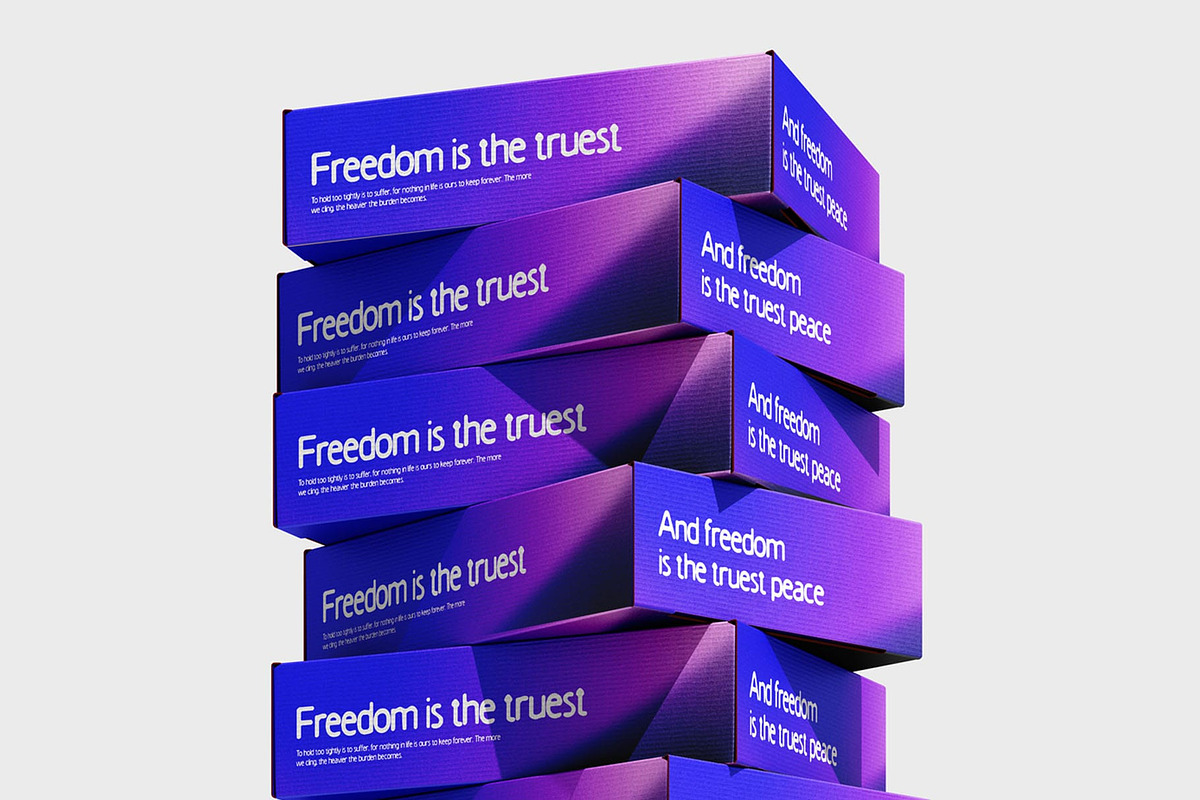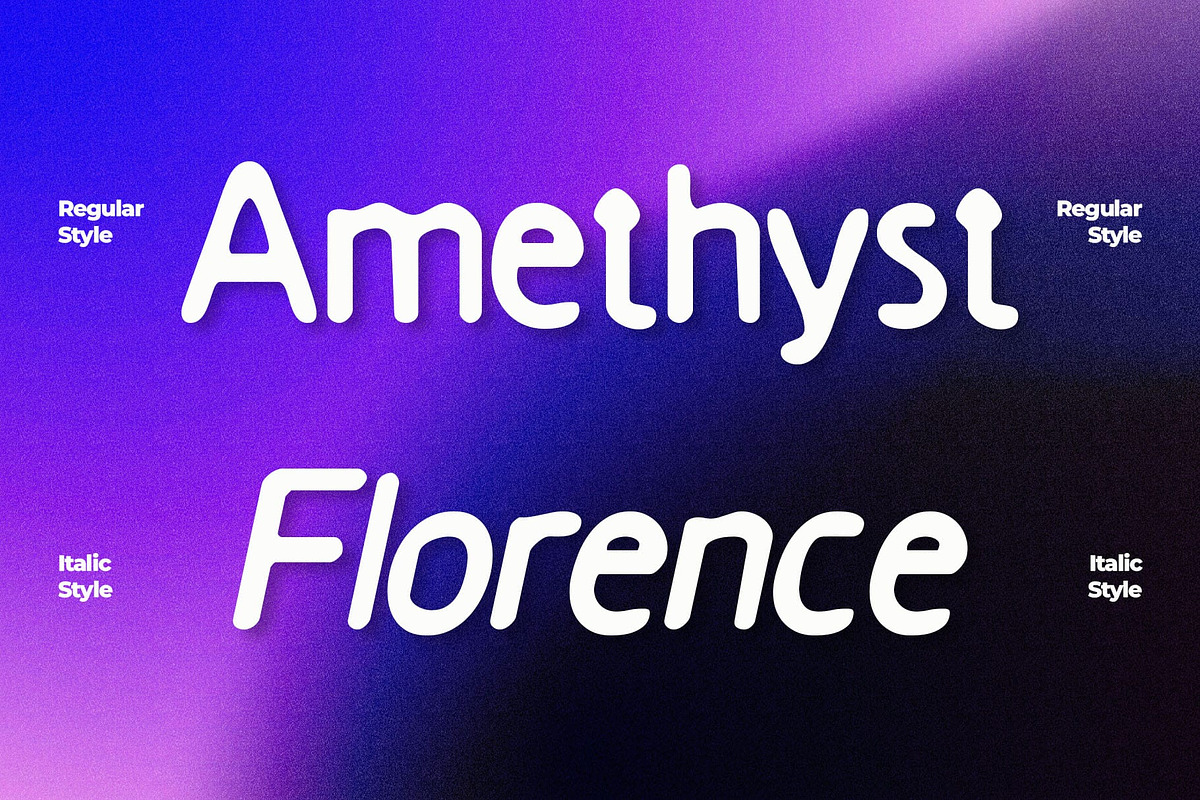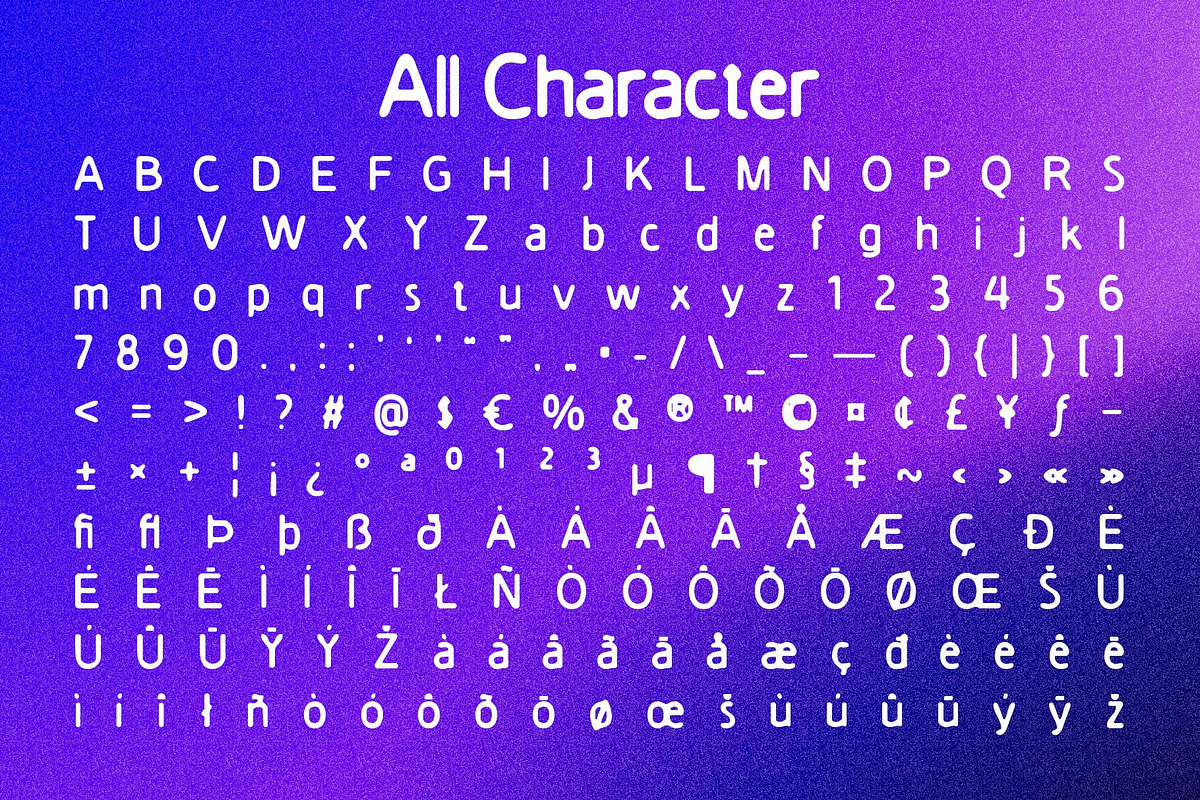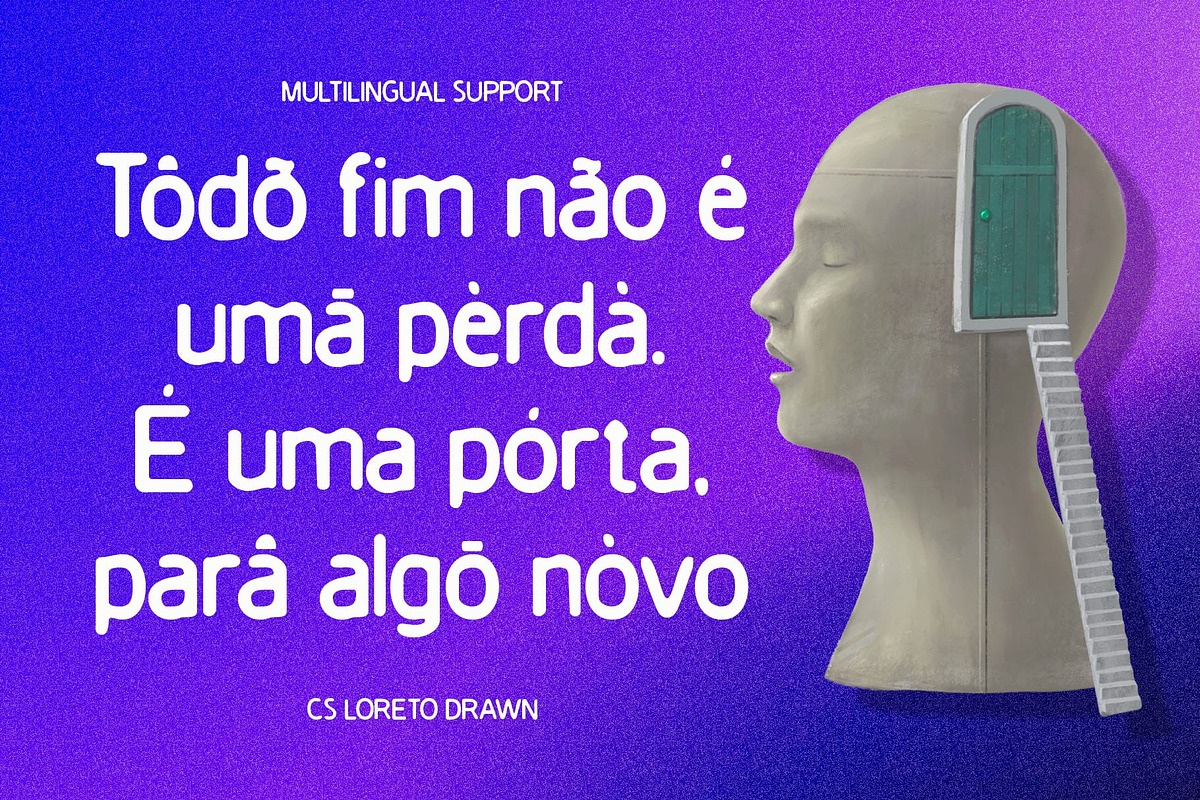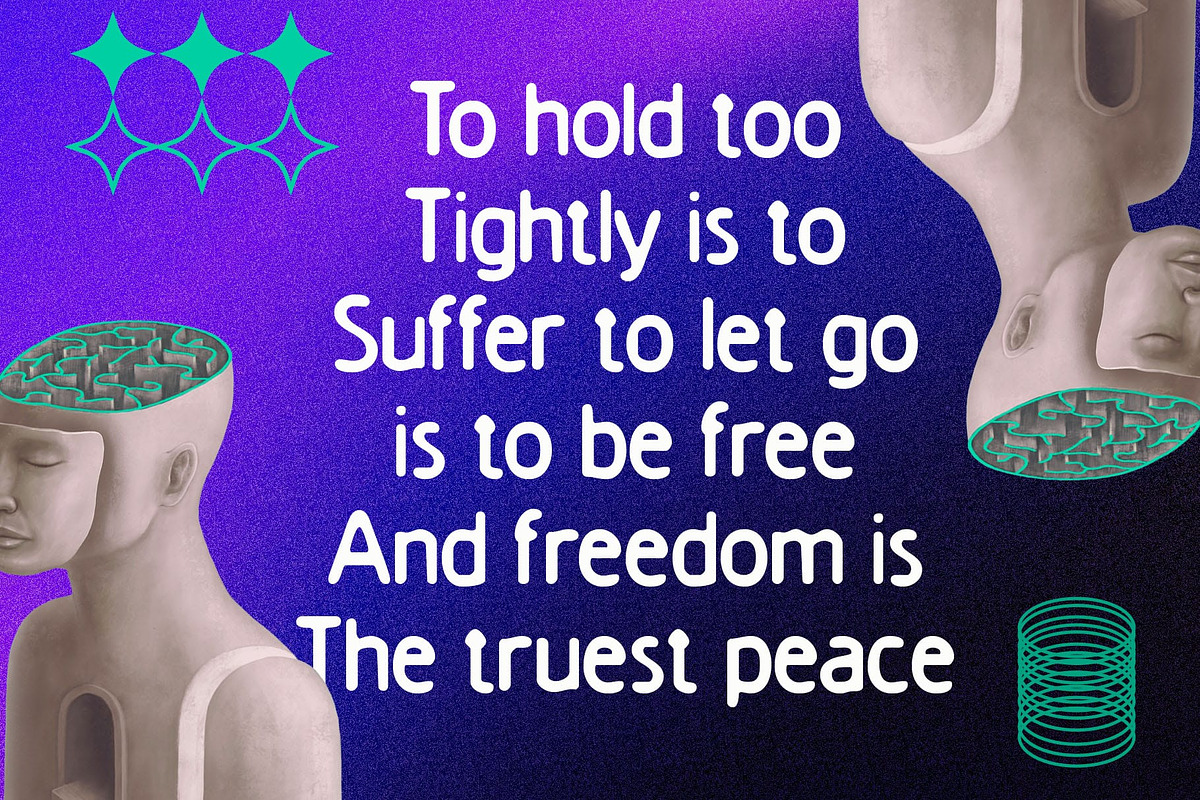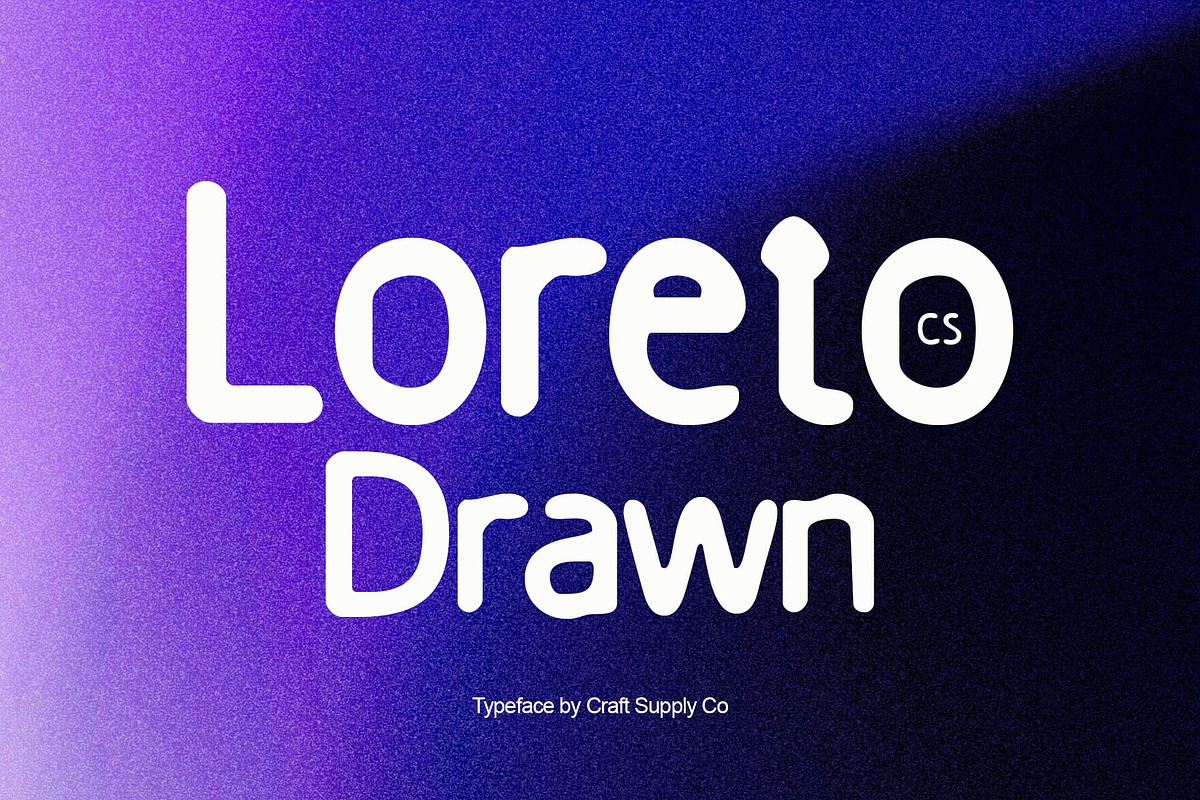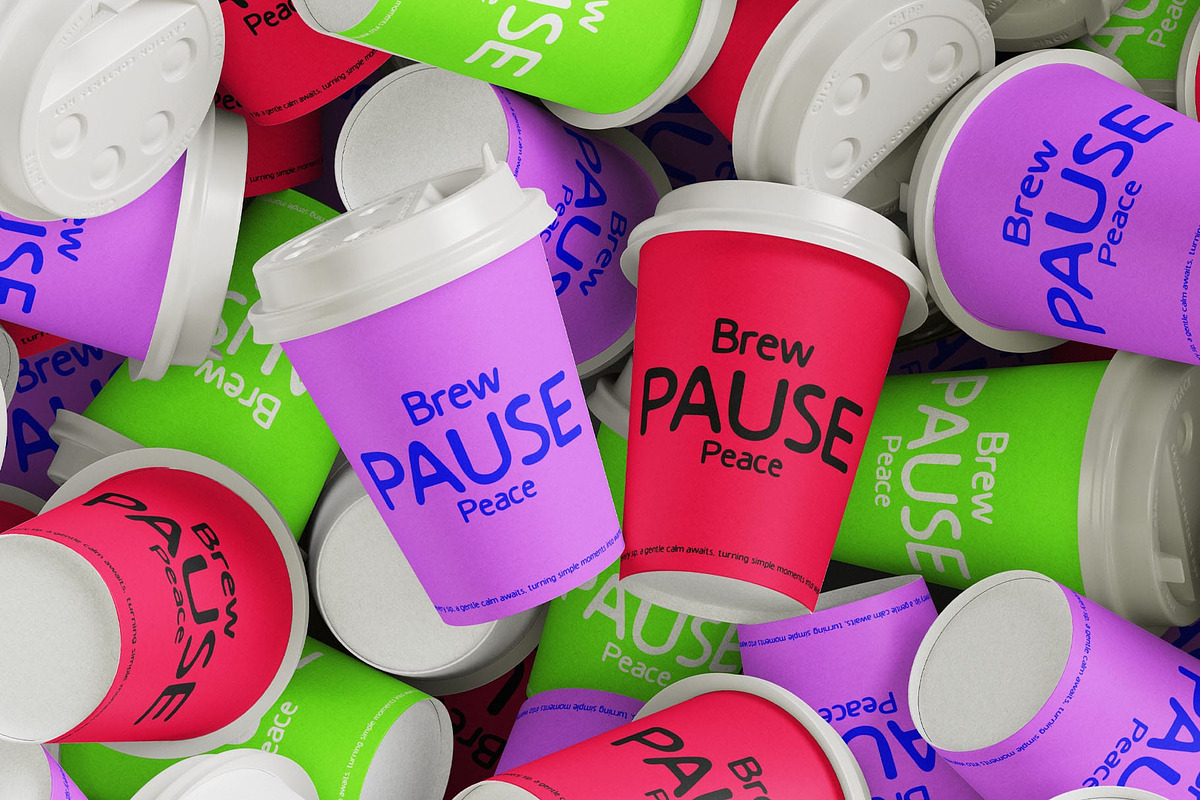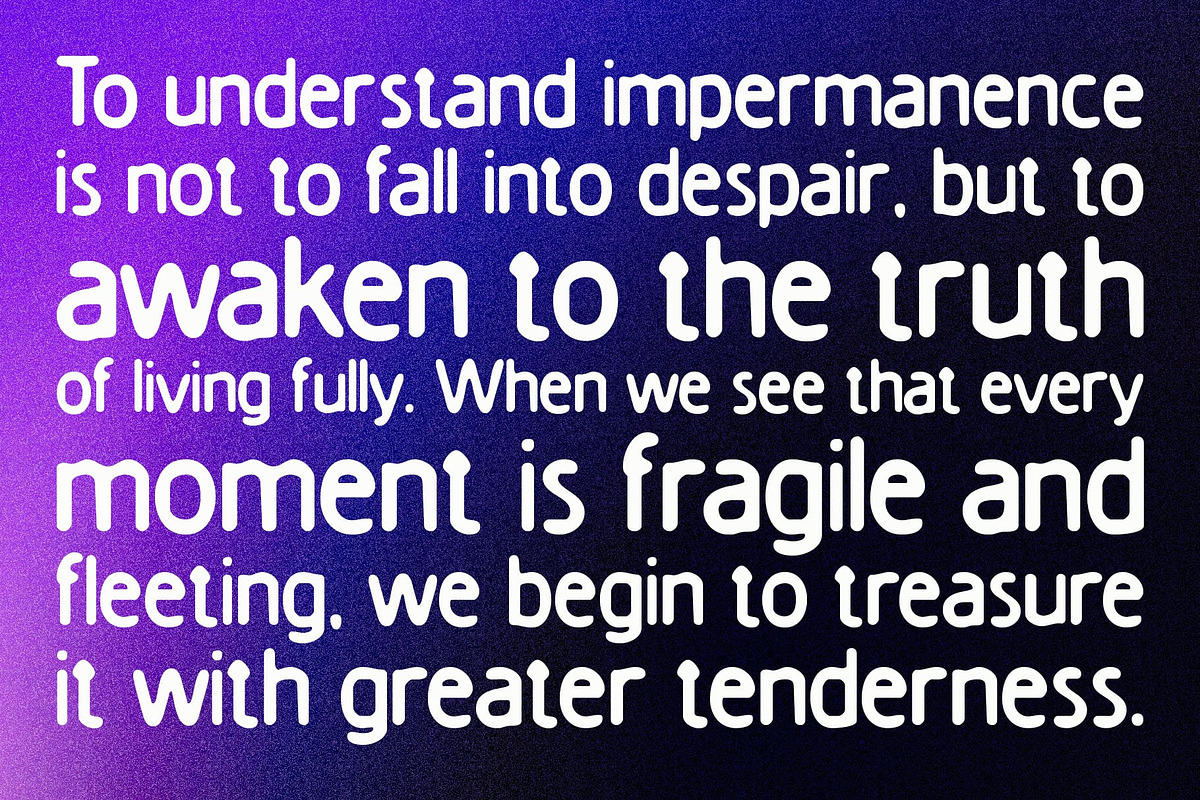
CS Loreto Drawn
CS Loreto Drawn – Condensed Sans Serif with Stamped Texture: Drawn and Ink-Overflow Effect
Handcrafted with Distinct Character CS Loreto Drawn is a sans serif font that carries a unique drawn quality, marked by textures that resemble overflowing ink. Its handcrafted appearance evokes the feel of stamped lettering, giving your designs a raw and organic impression. The slim, condensed form of the font enhances its modern usability while retaining a distinctly traditional touch.
Ink-Inspired Texture The defining feature of CS Loreto Drawn lies in its imperfect, ink-like strokes. Each character feels alive, as though pressed onto paper by hand, making it stand apart from clean, digital typefaces. This natural irregularity adds depth and individuality, perfect for projects that aim to highlight authenticity and creativity.
Versatility in Tradition and Modernity Although rooted in a traditional stamped aesthetic, CS Loreto Drawn adapts seamlessly to modern branding. Its condensed form is excellent for layouts that require strong typographic presence without overwhelming the design. Whether for logos, packaging, or creative posters, this font merges classic charm with a relaxed, contemporary vibe.
Perfect for Creative Expression CS Loreto Drawn thrives in projects that celebrate artistry, heritage, and originality. From editorial headlines to branding projects, it communicates a bold identity that feels both traditional and current. Designers seeking a font that blends handcrafted texture with condensed sans serif clarity will find CS Loreto Drawn a distinctive and versatile choice.
- CS Loreto Drawn Regular
- CS Loreto Drawn Italic